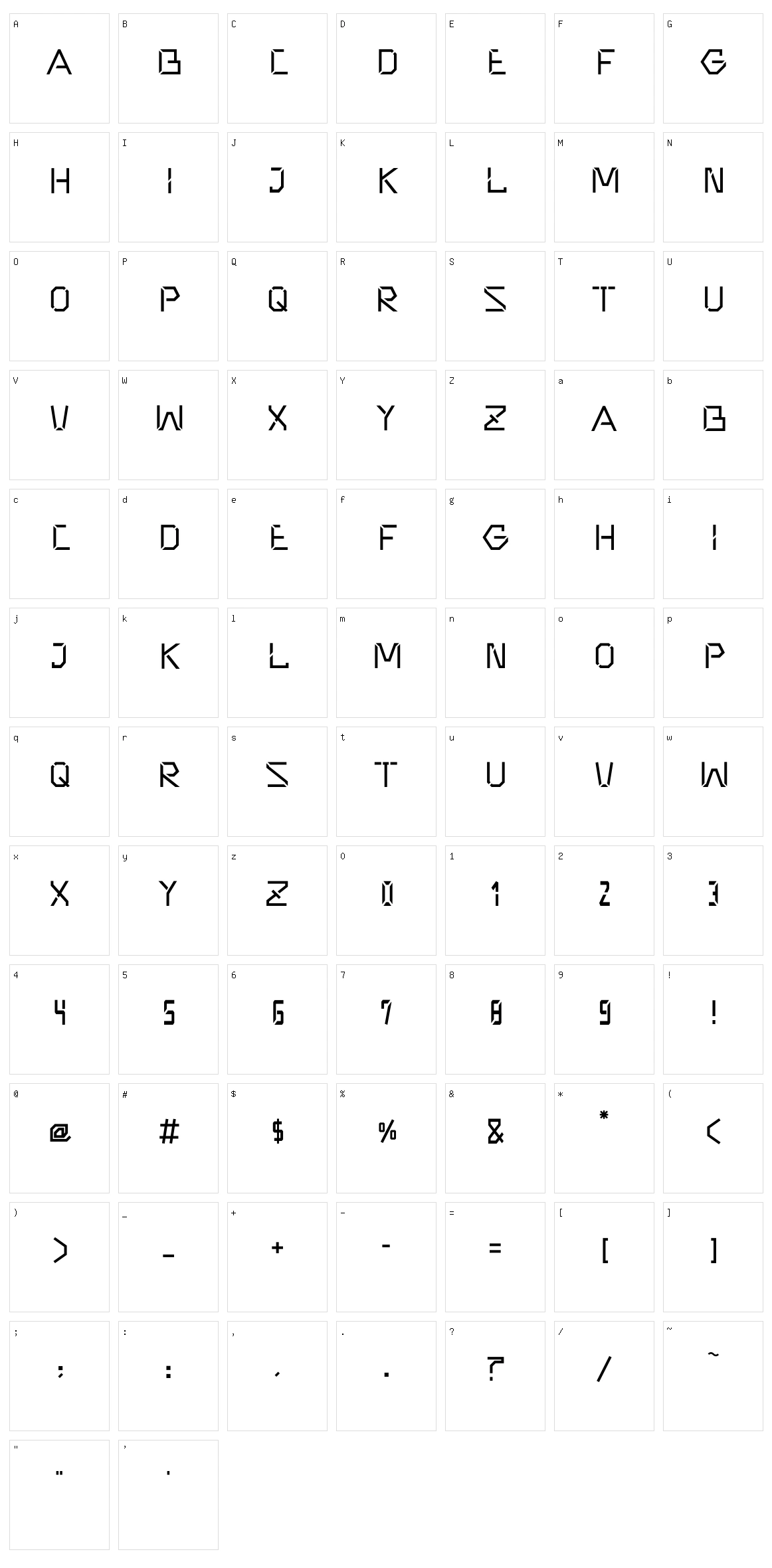
Anselmo
Designed by: Monica Wibowo
Anselmo is Future Techno stylized fonts.
This font set for sci-fi, Technology, digital, Geometric, that looks simple, and modern.
It will bring your latest project looked more Creative, bold, sophisticated and modern.
And this font can made for various purposes such as logos, posters, prints, product labels, typographic websites and other display needs.
This font comes in two styles : Anselmo Regular, and Anselmo Bold. But you only have 1 style (Regular) in this Demo version.
Anselmo Character Set